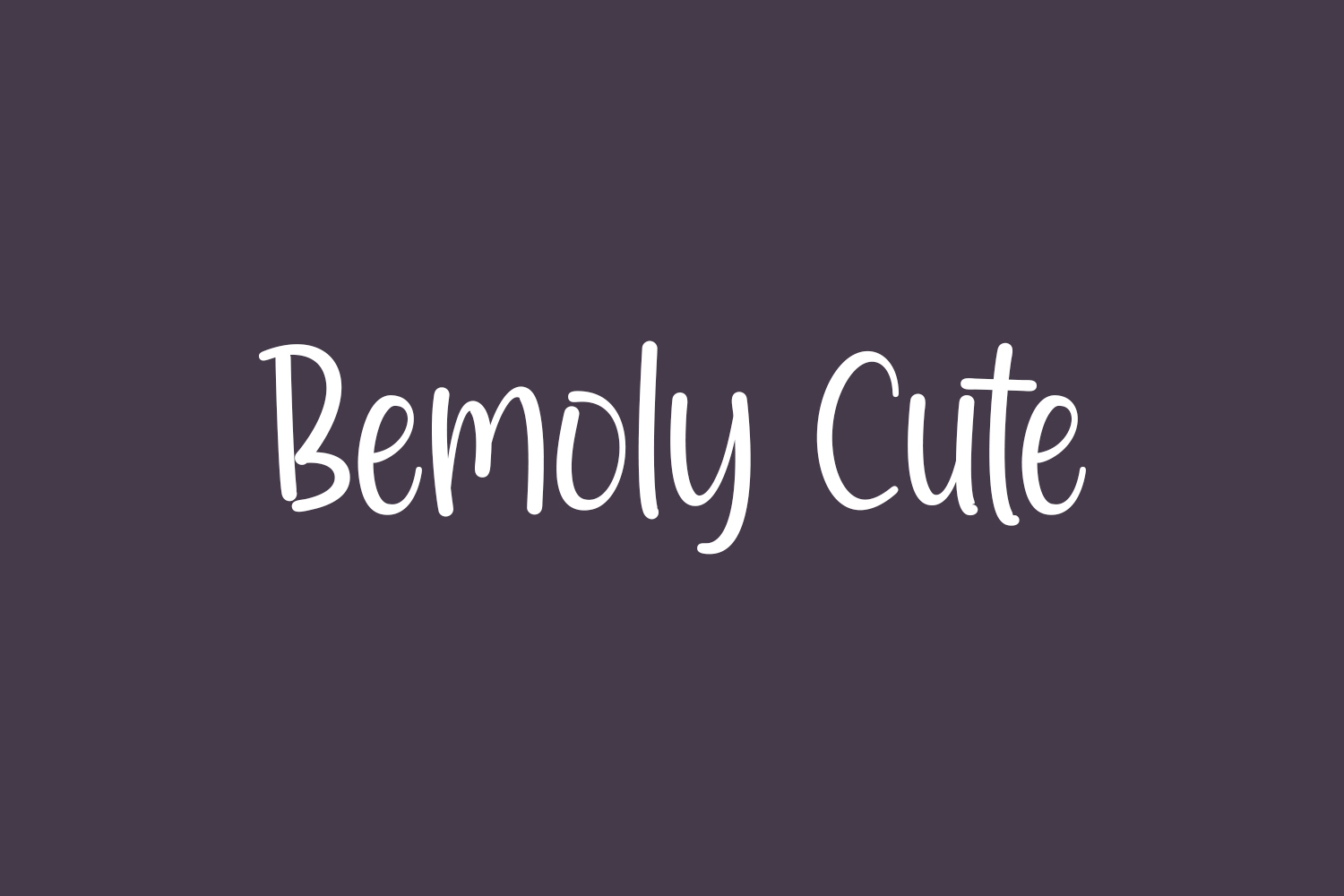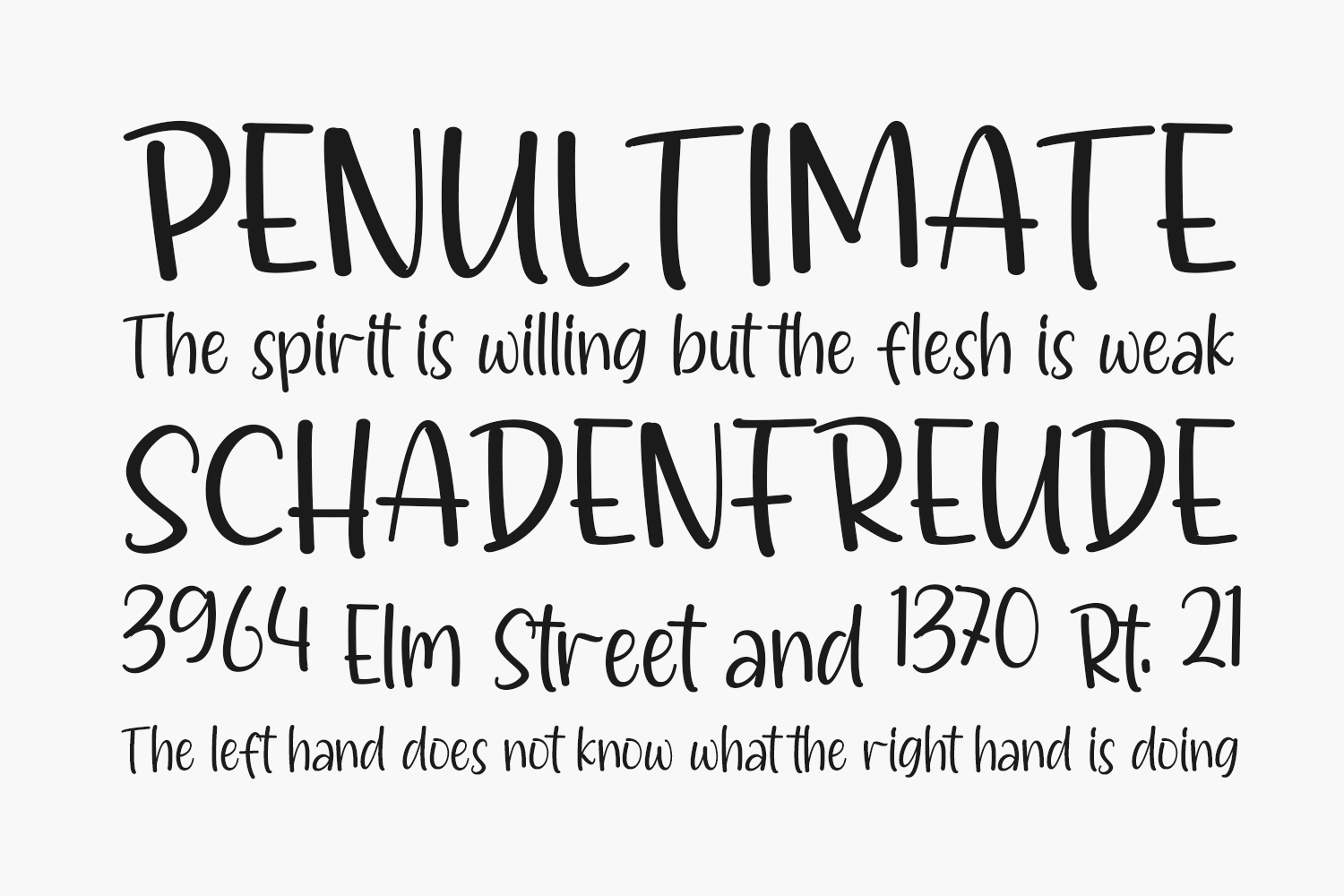
Bemoly Cute Free Font is a dainty and delicate handwritten font. It’s sweet and full of lifestyle makes this font a wonderful choice for brightening up your designs. Bemoly Cute Free Font was designed by Fivetype Studio and is free for personal use only. Please purchase the full version for commercial use.